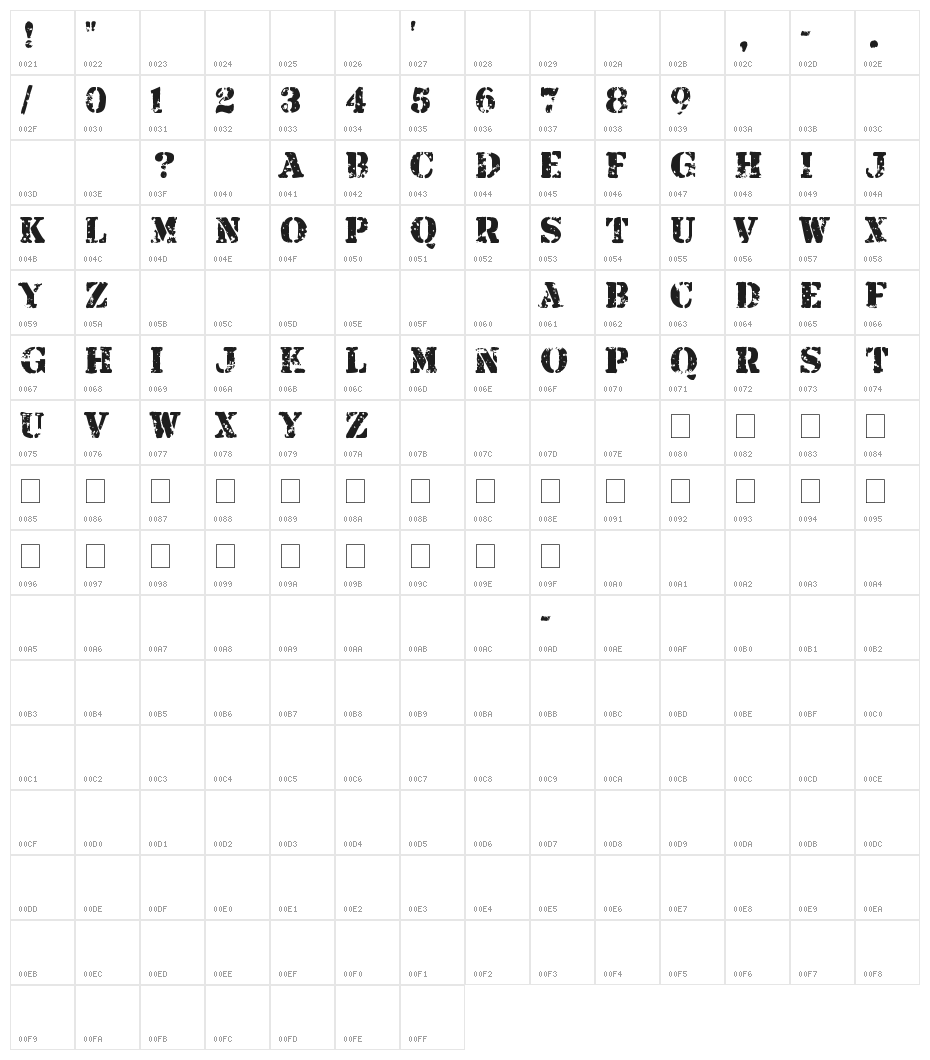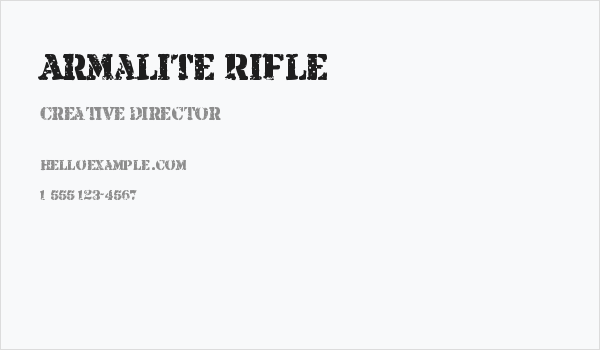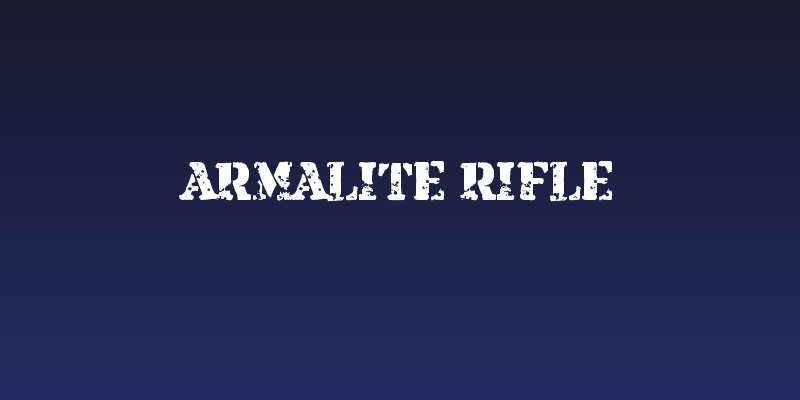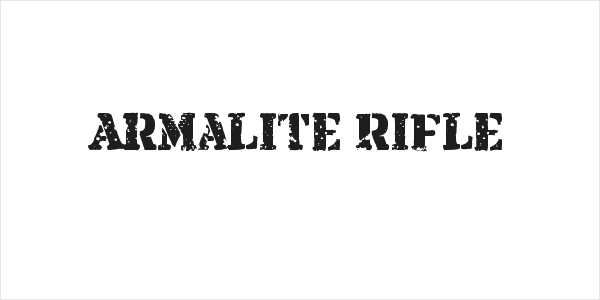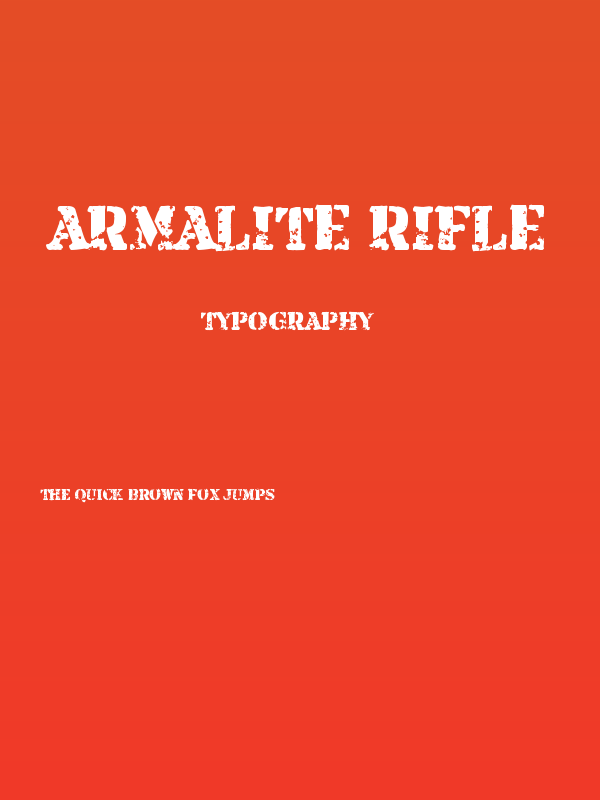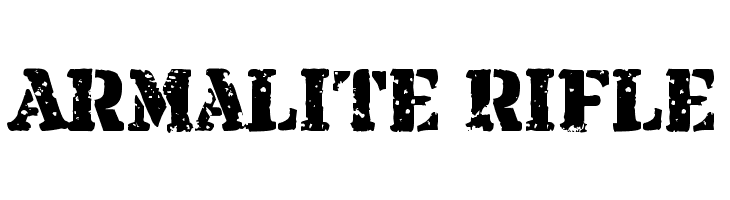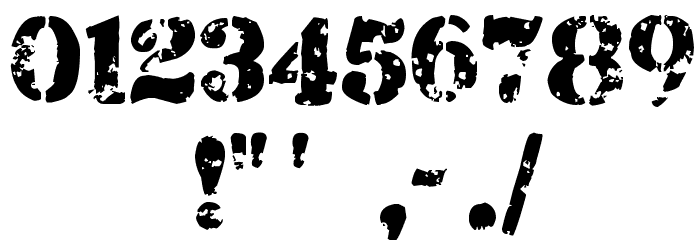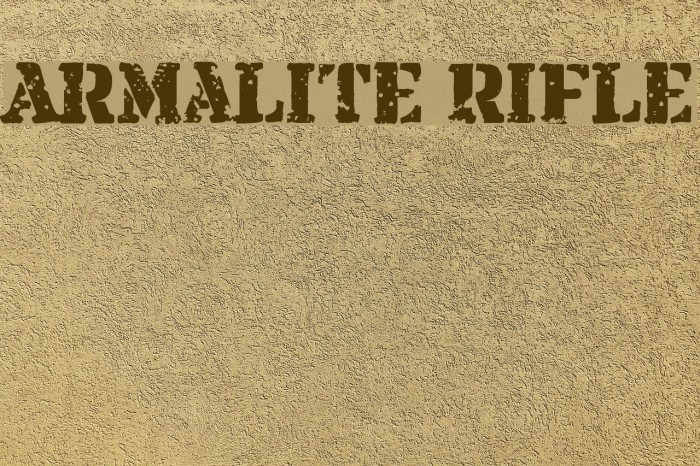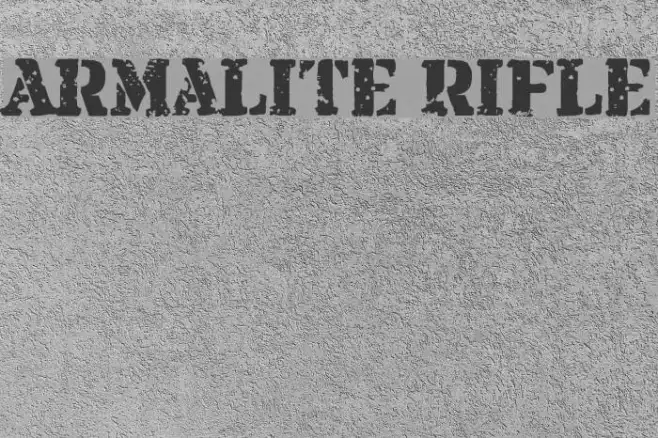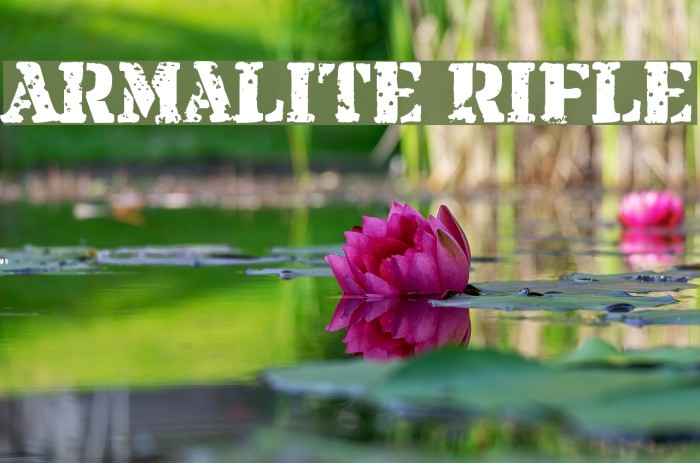
Armalite Rifle Font
| Projets proposés | Ideal for posters, album covers, branding for outdoor or adventure products, and any design needing a vintage or gritty look. |